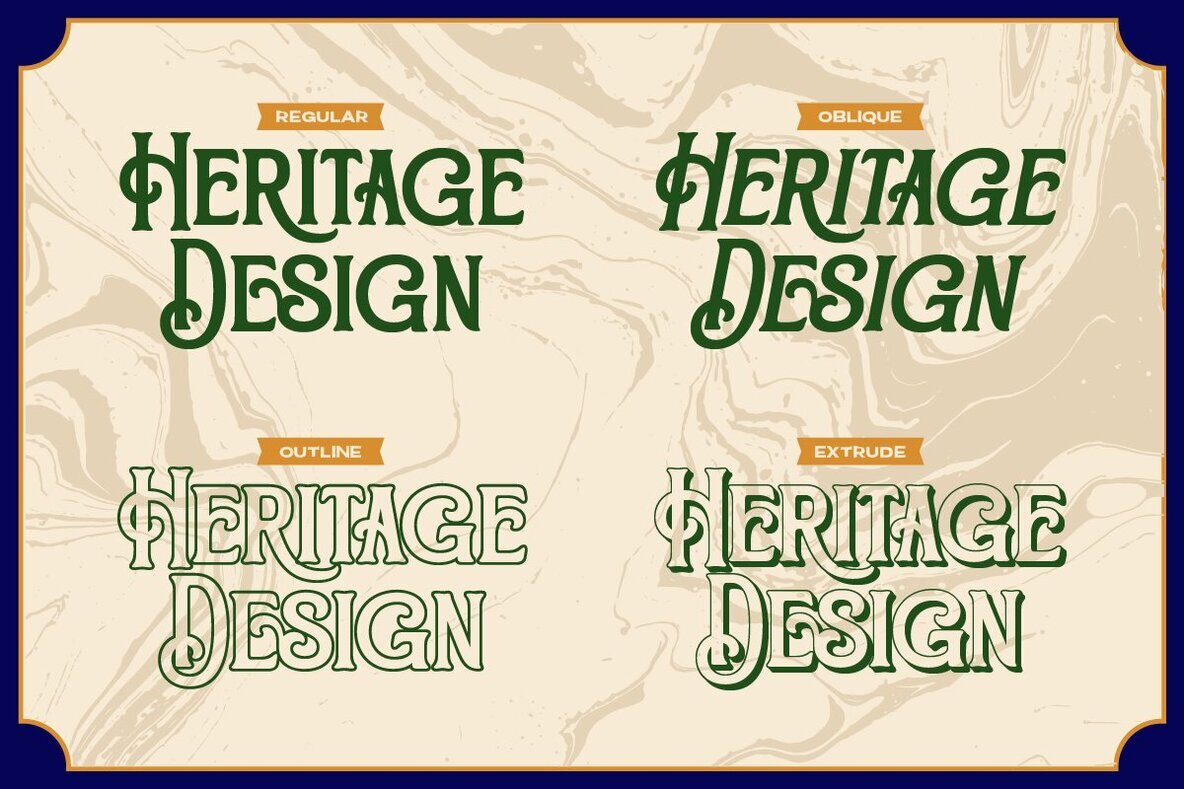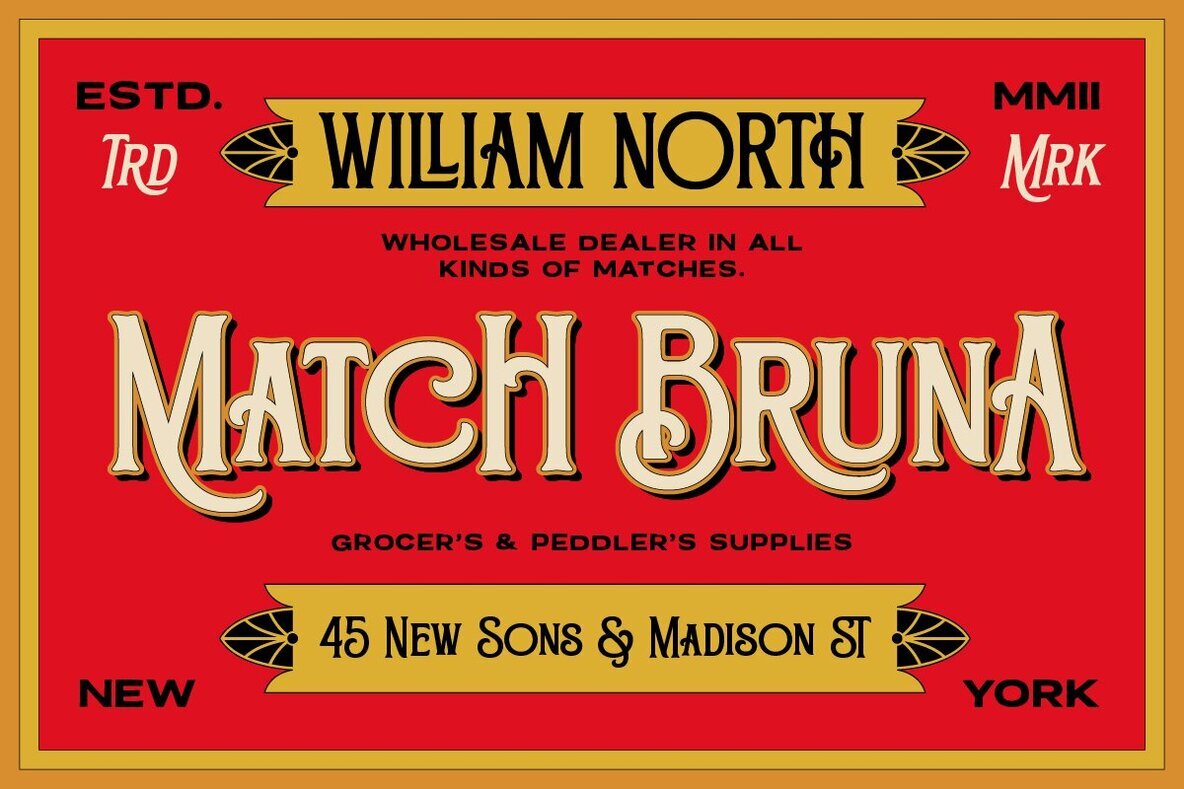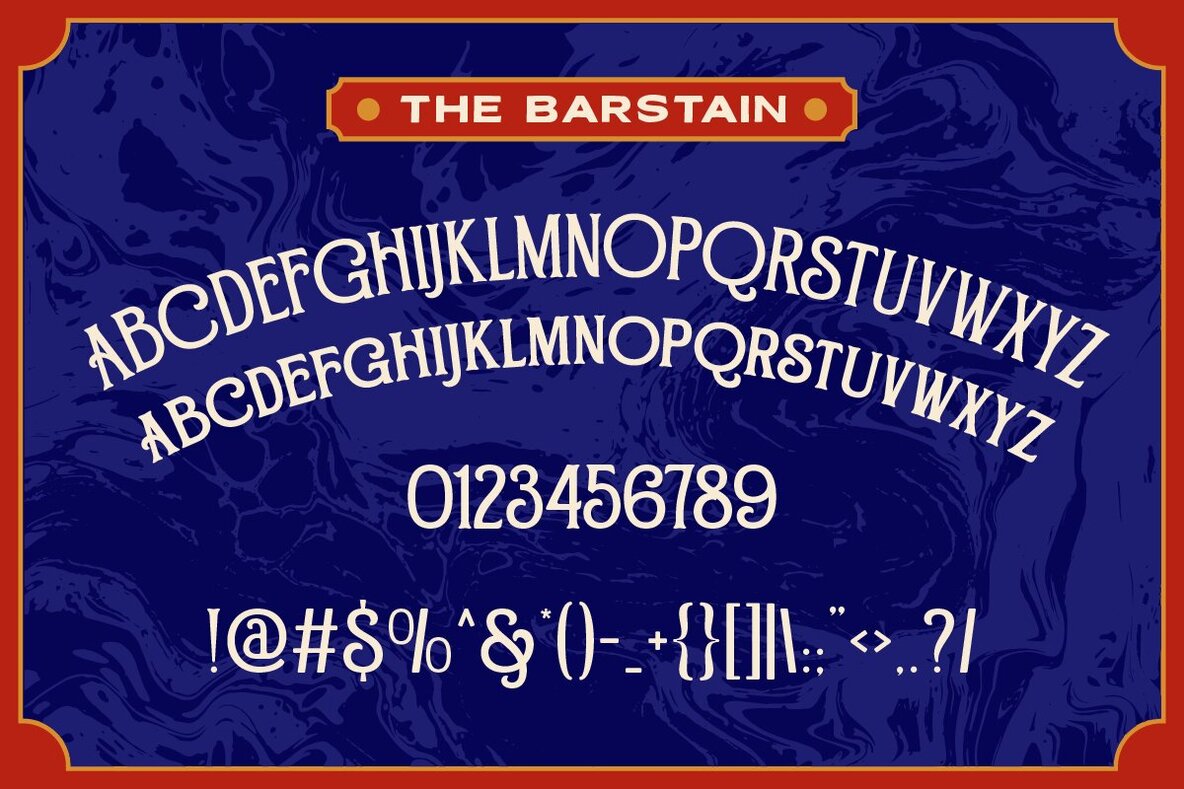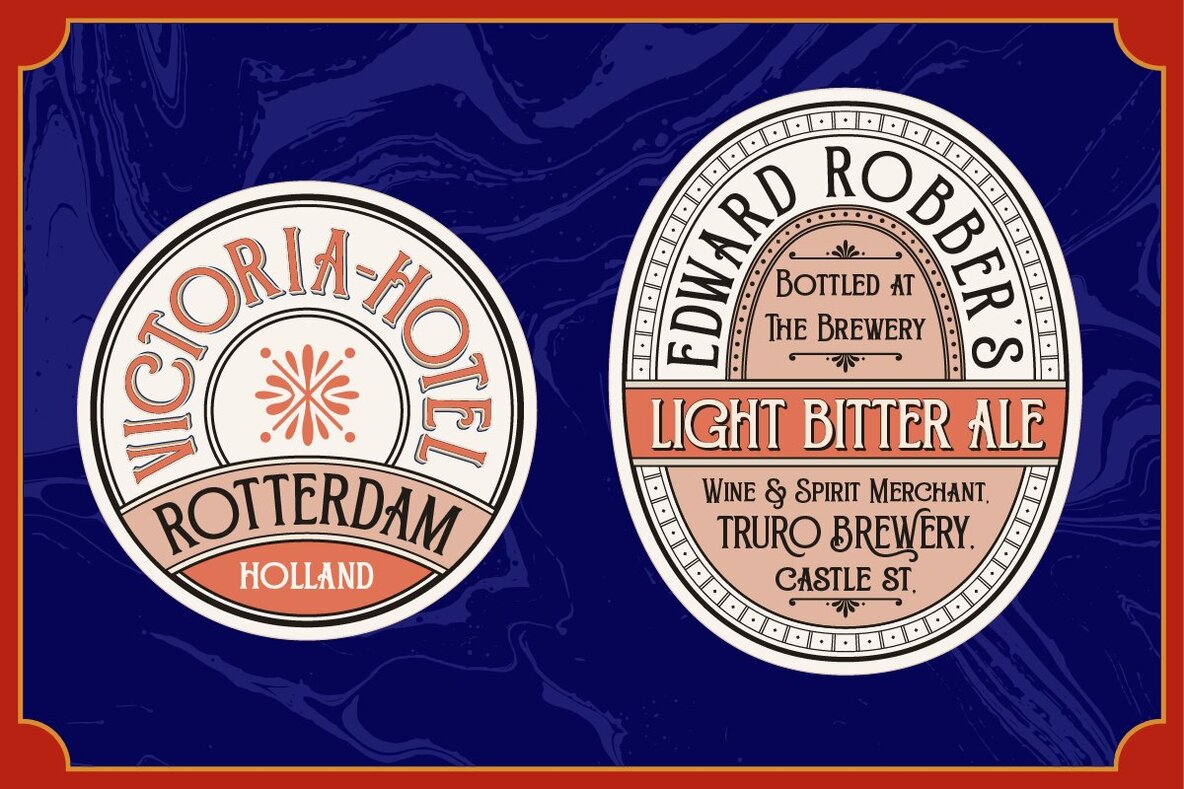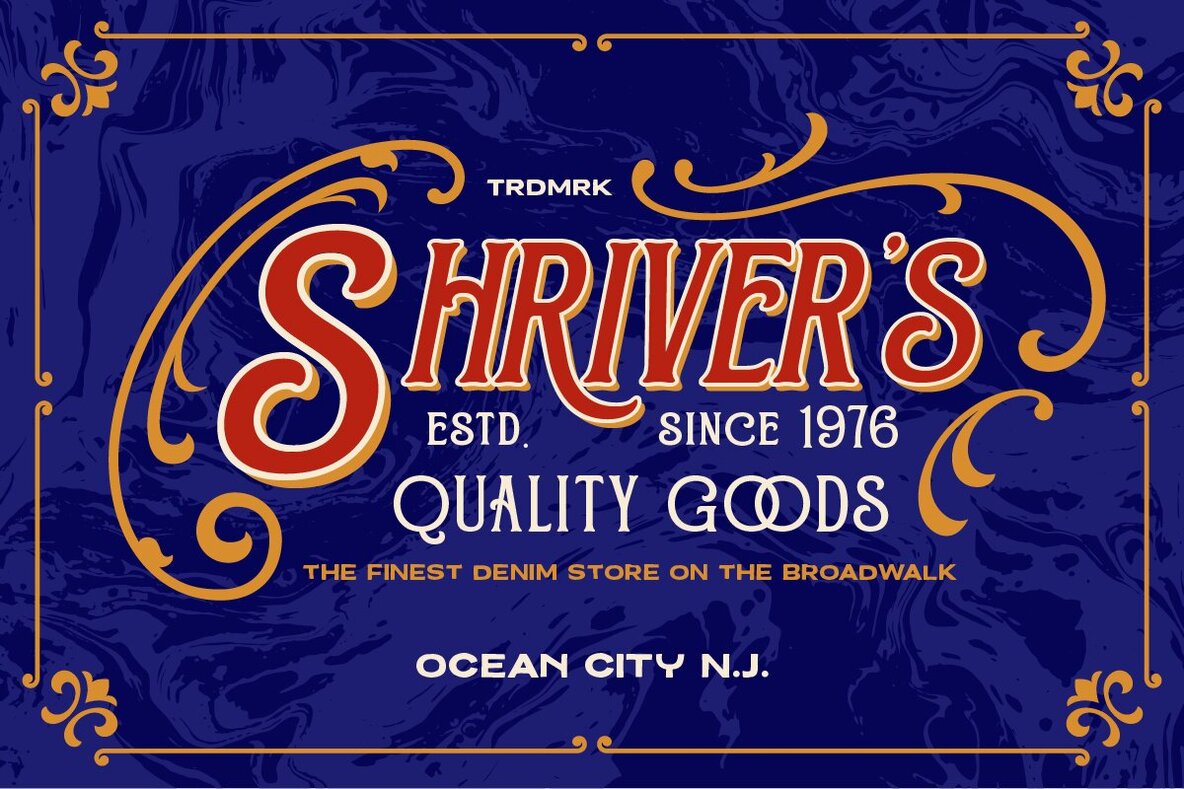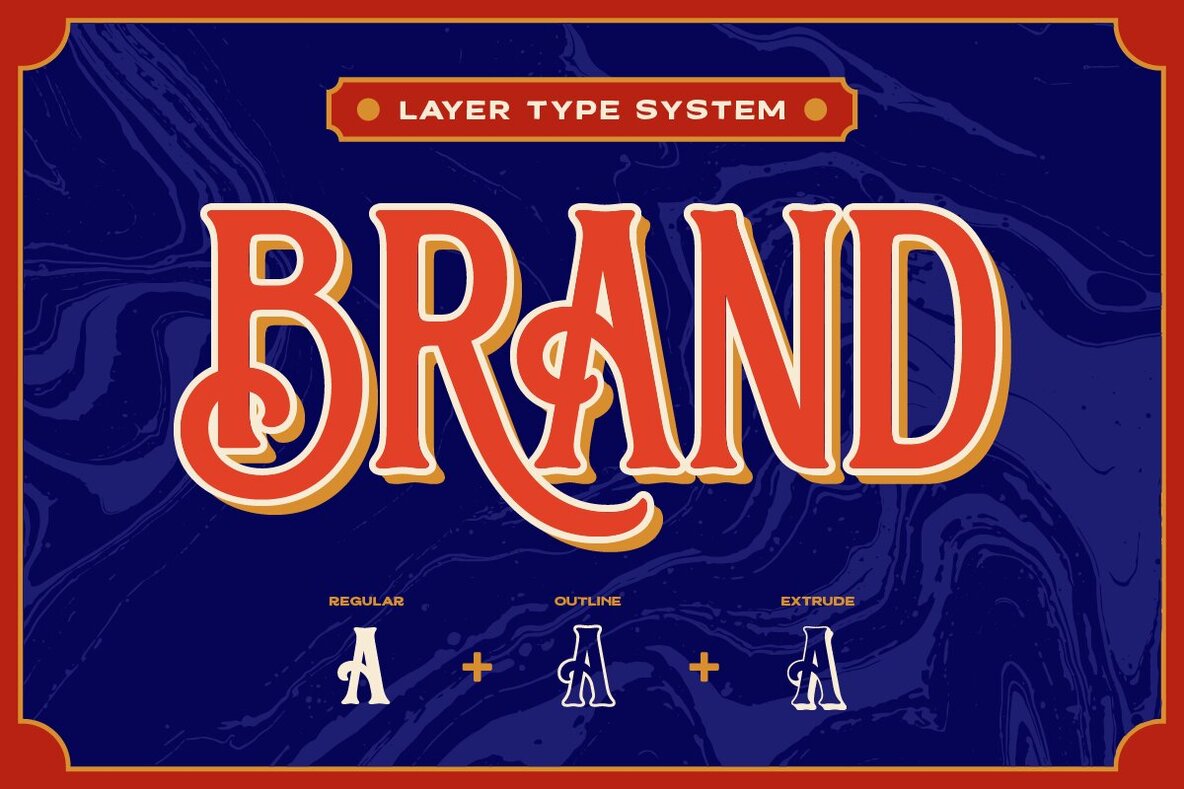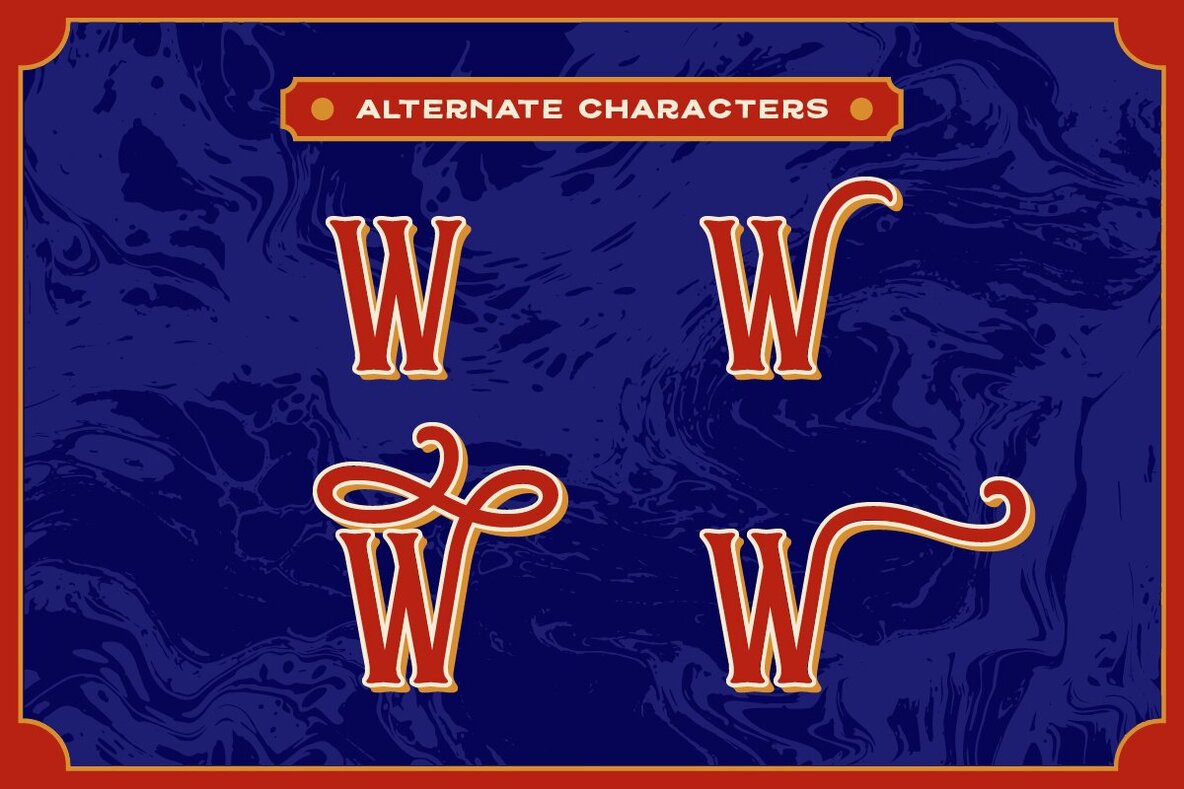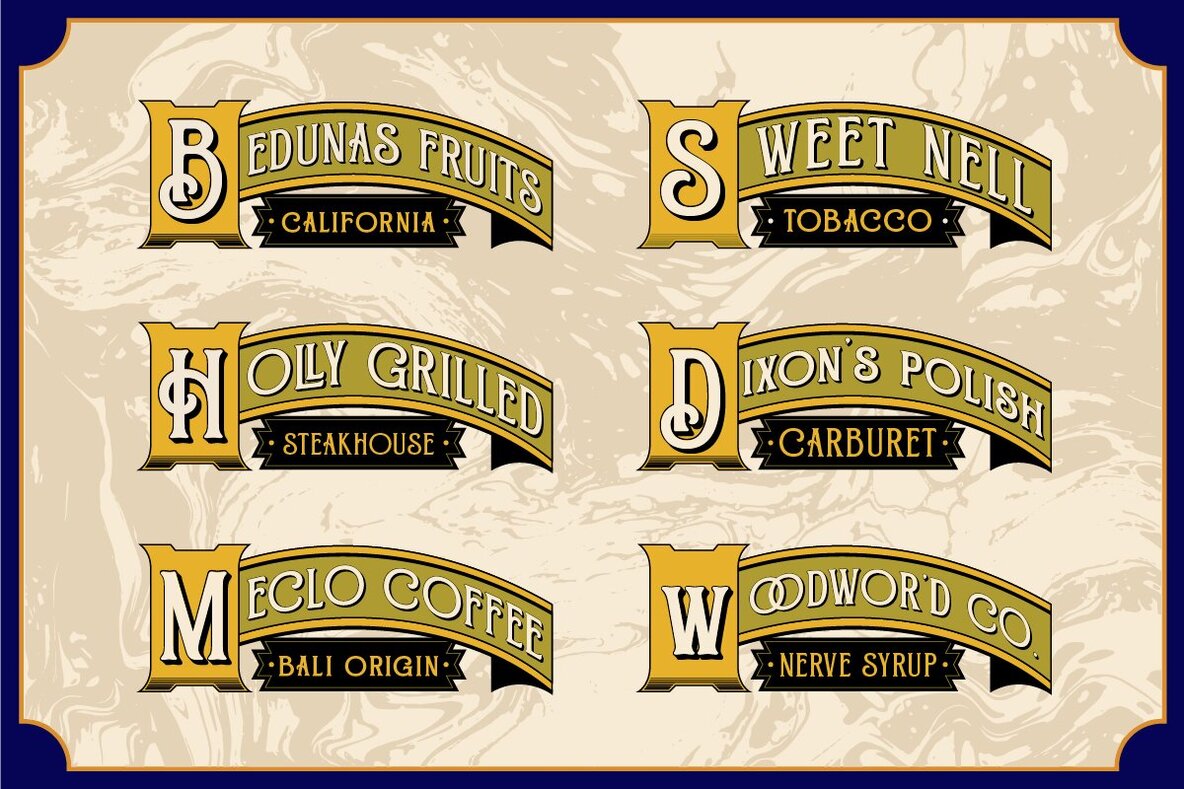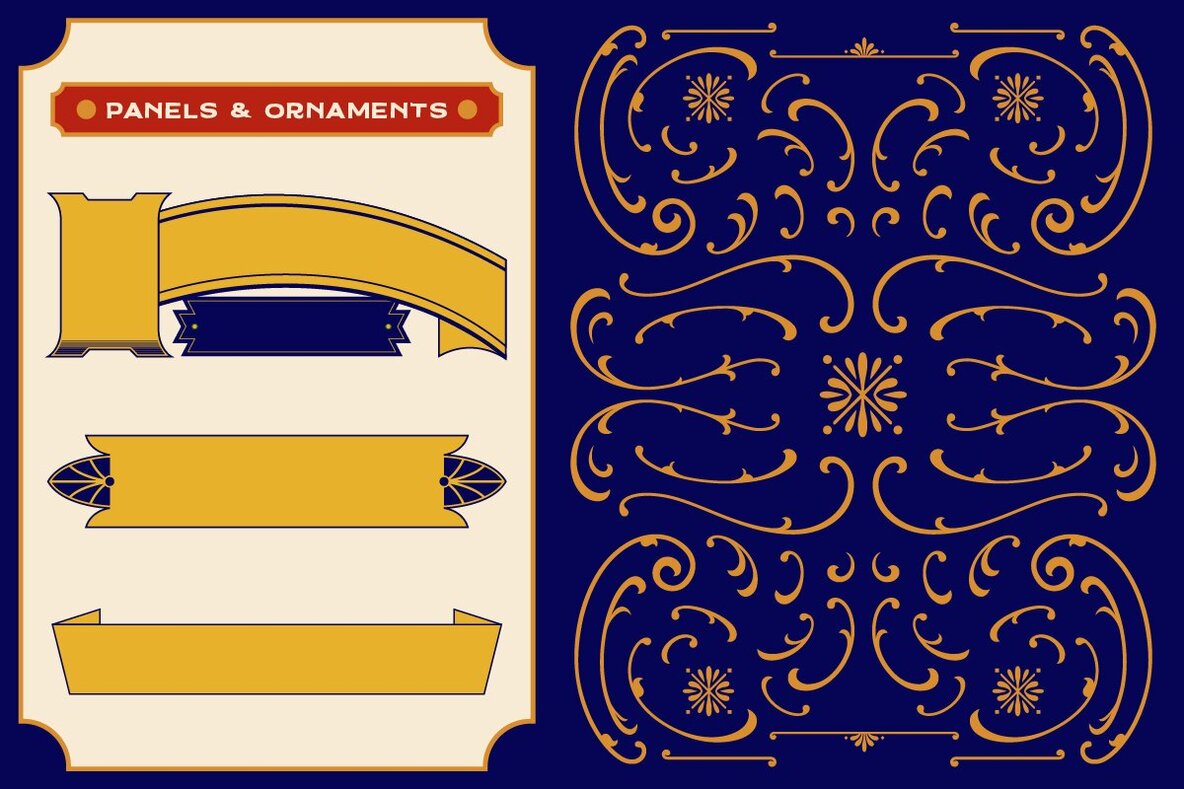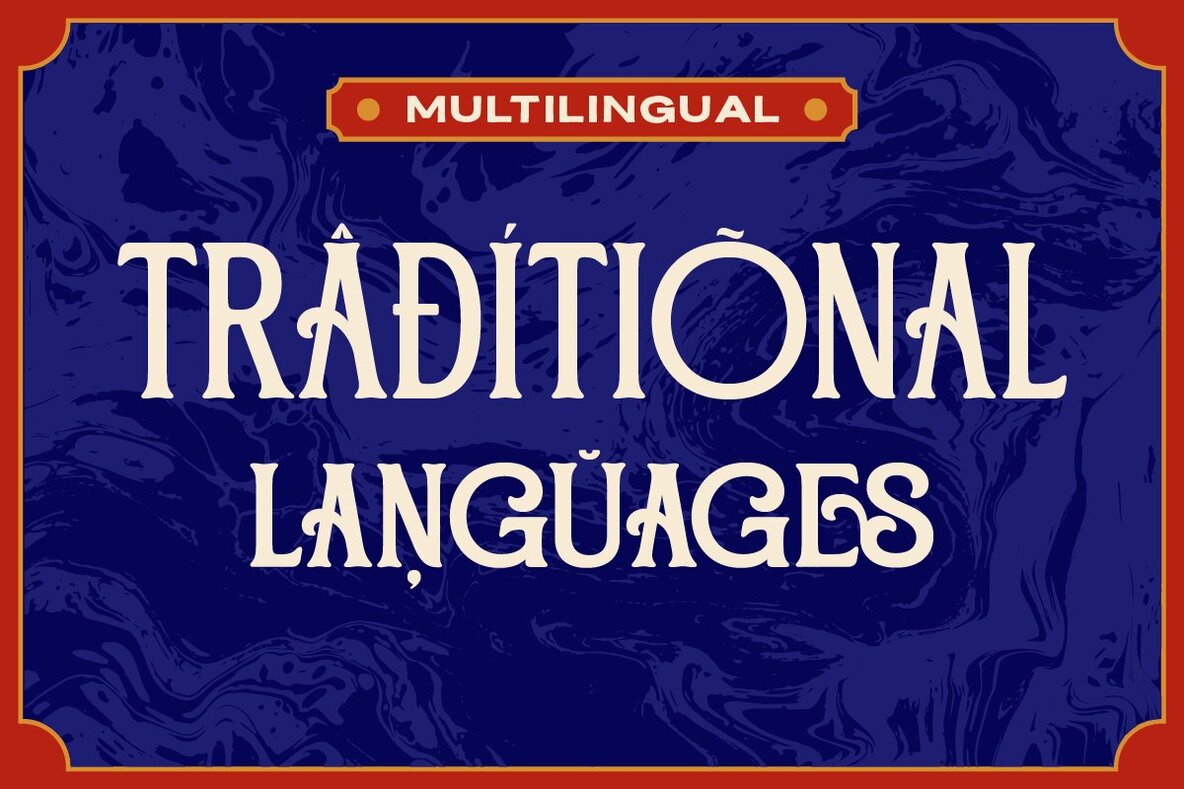
The Barstain Font
The Barstain font is a classic serif typeface inspired by the elegance of the Victorian era. Offering versatile design options, it includes four distinctive layers: regular, outline, extrude, and oblique. The Barstain is further enhanced by a range of alternates, panels, and ornaments to infuse a touch of vintage sophistication into your designs. With multilingual accent support, this font is ideal for international projects.
This Victorian-style font is perfectly suited for branding, editorial design, invitations, signage, and posters, delivering a timeless aesthetic wherever it is applied. Its comprehensive feature set includes an A-Z alphabet available in both uppercase and lowercase, numerals, punctuation, alternates, and a multilingual character map. Additionally, The Barstain offers bonus ornaments and panels to further embellish your creative work.